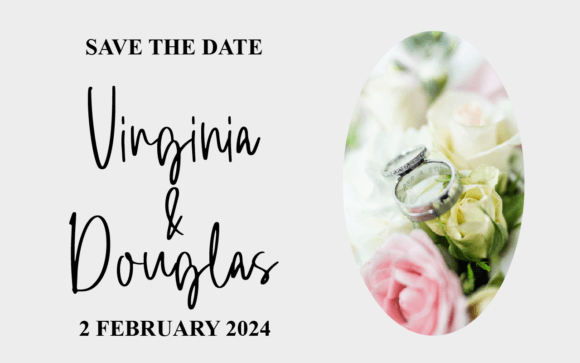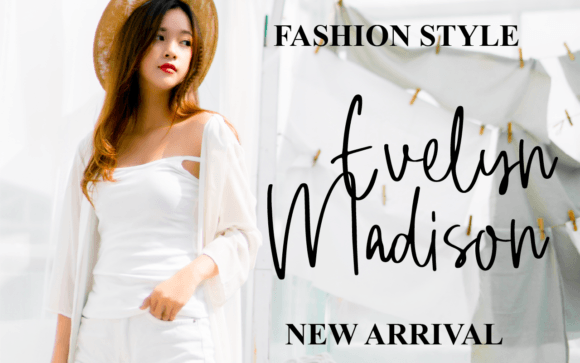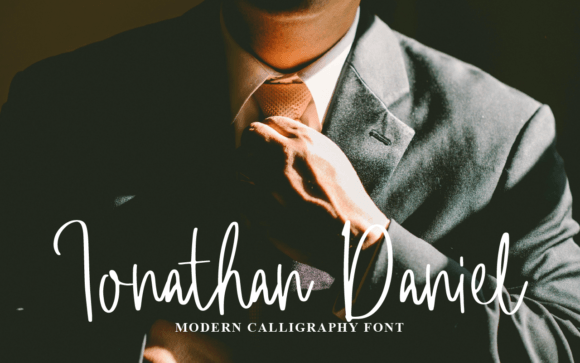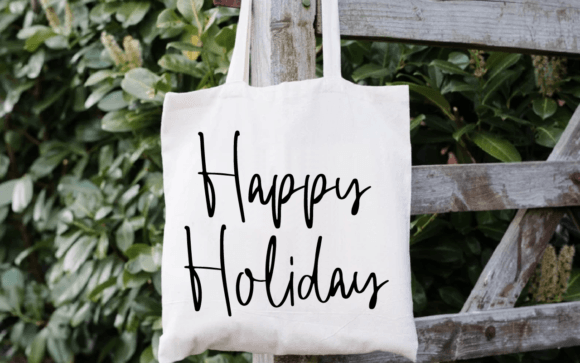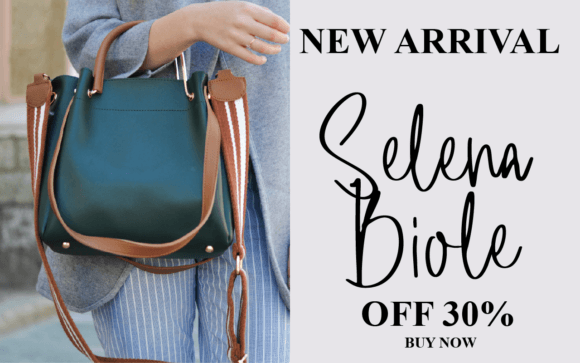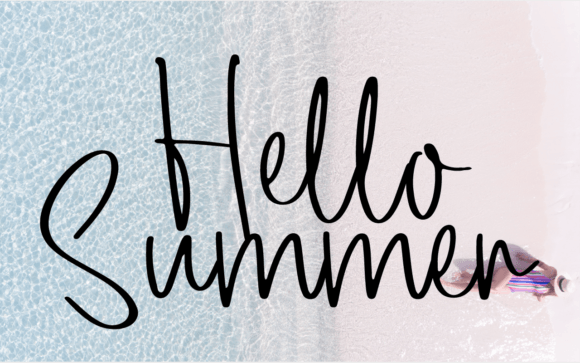
Discover the Timeless Elegance of Brenda Claudia Font
Are you a designer or crafter looking for a font that exudes sophistication and refinement? Look no further than the stunning Brenda Claudia font. This beautiful typeface is a masterpiece of elegance, with delicate flourishes and sweeping curves that evoke a sense of timeless beauty. In this article, we’ll explore the intricate details and flowing lines that make Brenda Claudia font the perfect choice for any project where luxury and refinement are key.
The Art of Elegance: Brenda Claudia Font
Brenda Claudia font is a work of art that embodies the very essence of elegance. Its intricate details and delicate flourishes make it a standout among other fonts, and its sweeping curves add a touch of sophistication that’s hard to find elsewhere. Whether you’re working on a high-end branding project, a luxury packaging design, or a beautiful wedding invitation, Brenda Claudia font is the perfect choice.
What Makes Brenda Claudia Font So Special?
So, what sets Brenda Claudia font apart from other fonts? Here are just a few reasons why this font is a cut above the rest:
- Intricate details: Brenda Claudia font features intricate details that add a level of sophistication and refinement to any project.
- Flowing lines: The font’s flowing lines and sweeping curves create a sense of movement and elegance.
- Timeless beauty: Brenda Claudia font has a timeless quality that ensures it will never go out of style.
- Versatility: This font can be used for a wide range of projects, from luxury branding to beautiful wedding invitations.
Using Brenda Claudia Font in Your Designs
Brenda Claudia font is incredibly versatile, and can be used for a wide range of design projects. Here are just a few ideas to get you started:
- Luxury branding: Use Brenda Claudia font to create a high-end brand identity that exudes sophistication and refinement.
- Wedding invitations: This font is perfect for beautiful wedding invitations, adding a touch of elegance and romance to your design.
- Packaging design: Brenda Claudia font is ideal for luxury packaging design, adding a level of sophistication and refinement to your product.
- Stationery: Use this font to create beautiful stationery, such as letterheads, business cards, and more.
Tips for Getting the Most Out of Brenda Claudia Font
To get the most out of Brenda Claudia font, here are a few tips to keep in mind:
- Use it sparingly: Because Brenda Claudia font is so elegant and refined, it’s best to use it sparingly to avoid overwhelming your design.
- Pair it with a sans-serif font: Pairing Brenda Claudia font with a sans-serif font can create a beautiful contrast that adds visual interest to your design.
- Experiment with different sizes: Don’t be afraid to experiment with different sizes and scales to find the perfect fit for your design.
In conclusion, Brenda Claudia font is a stunning work of art that embodies the very essence of elegance and sophistication. Its intricate details, flowing lines, and timeless beauty make it the perfect choice for any project where luxury and refinement are key. Whether you’re a designer or crafter, this font is sure to inspire your creativity and help you create something truly beautiful. So why wait? Discover the timeless elegance of Brenda Claudia font today and take your designs to the next level!